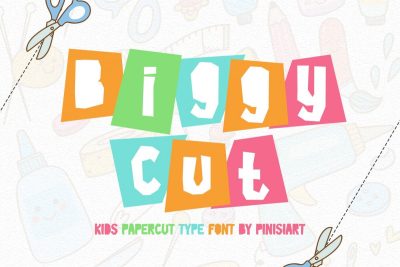
Biggy Cut
Funny Font Biggy Cut is a lively and energetic typeface that effortlessly adds fun and creativity to any project. Inspired by paper cutouts, this font features bold, quirky letterforms that look as if they were hand-cut with scissors. Moreover, its irregular edges and dynamic letter arrangement create a youthful and cheerful vibe. Whether you are working on kids’ designs, crafting invitations, or designing eye-catching headlines, Biggy Cut undoubtedly adds personality and joy to your work.
With bold uppercase lettering and fun, uneven shapes, this font naturally stands out in any layout. Additionally, its color-friendly nature pairs well with bright palettes, further enhancing its playful charm. Biggy Cut isn’t just a font—it’s an immersive experience full of joy, creativity, and imagination, making words pop with charm and excitement. Whether you are creating digital designs, posters, or even branding materials, this font guarantees to bring a sense of enthusiasm and vibrancy to your visuals.
Who is Funny Font Biggy Cut for?
This font is ideal for designers, educators, content creators, and anyone eager to add fun to their work. Here are some specific uses:
• Children’s Book Designers: Ideal for book covers, illustrations, and storytelling, as it effortlessly captures young readers’ imagination.
• Teachers & Educators: Great for educational materials, classroom posters, and learning resources, making lessons more engaging and interactive.
• Branding & Packaging Designers: A fantastic choice for playful brands, toy packaging, and candy wrappers, as it immediately grabs attention.
• Event Planners & DIY Creators: Perfect for birthday invitations, greeting cards, and party decorations, ensuring a joyful atmosphere.
• Social Media Content Creators: Excellent for YouTube thumbnails, Instagram posts, and fun marketing campaigns, helping content stand out.
• Crafters & Hobbyists: Ideal for handmade projects, scrapbooking, and personalized gifts, adding a unique touch to any creative endeavor.
If you need a font that radiates happiness, positivity, and handmade charm, Funny Font Biggy Cut is the perfect choice. So, let your creativity flow and make your projects stand out with this unique and playful typeface! No matter the occasion, this font helps you create designs that are full of warmth and character, ensuring a delightful experience for your audience.
It looks like from a fresh cut of paper and ready to be put and arranged as a fun project for kids.